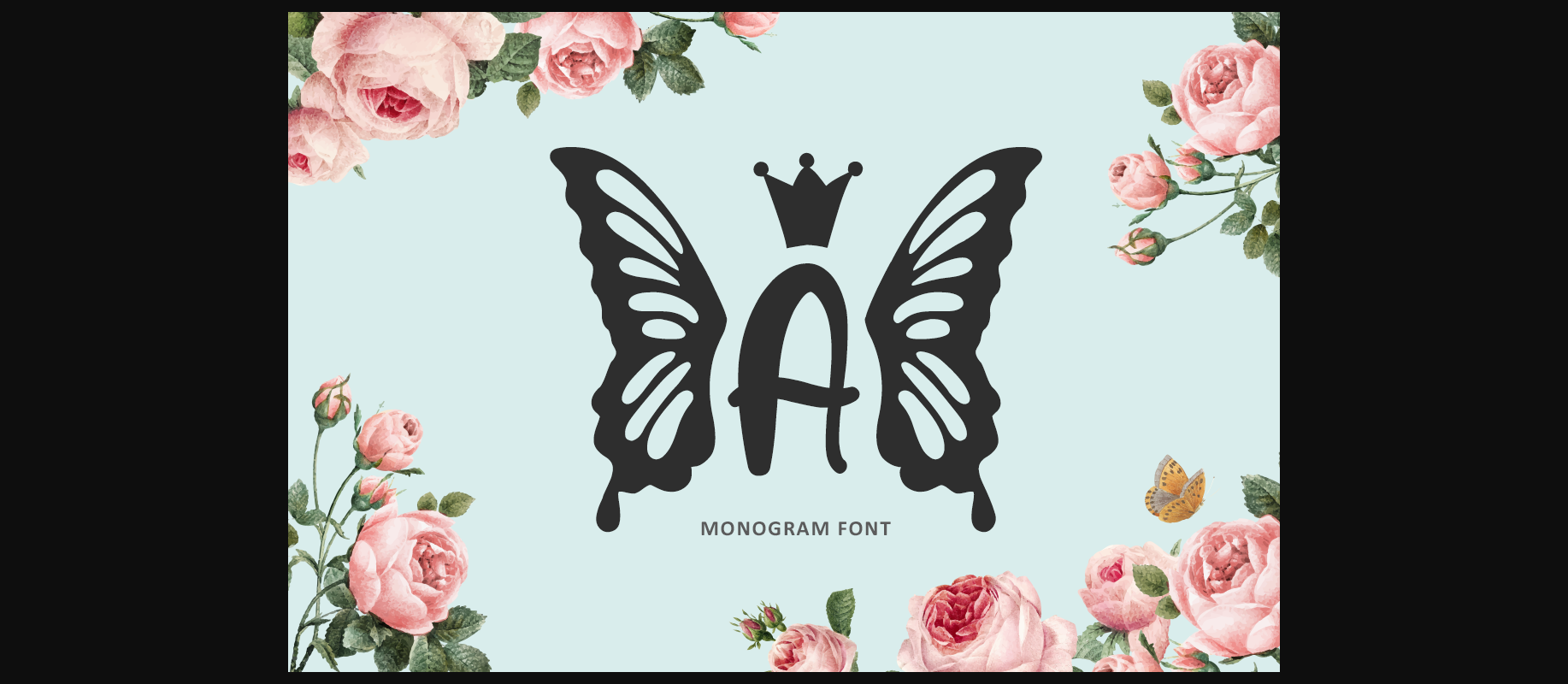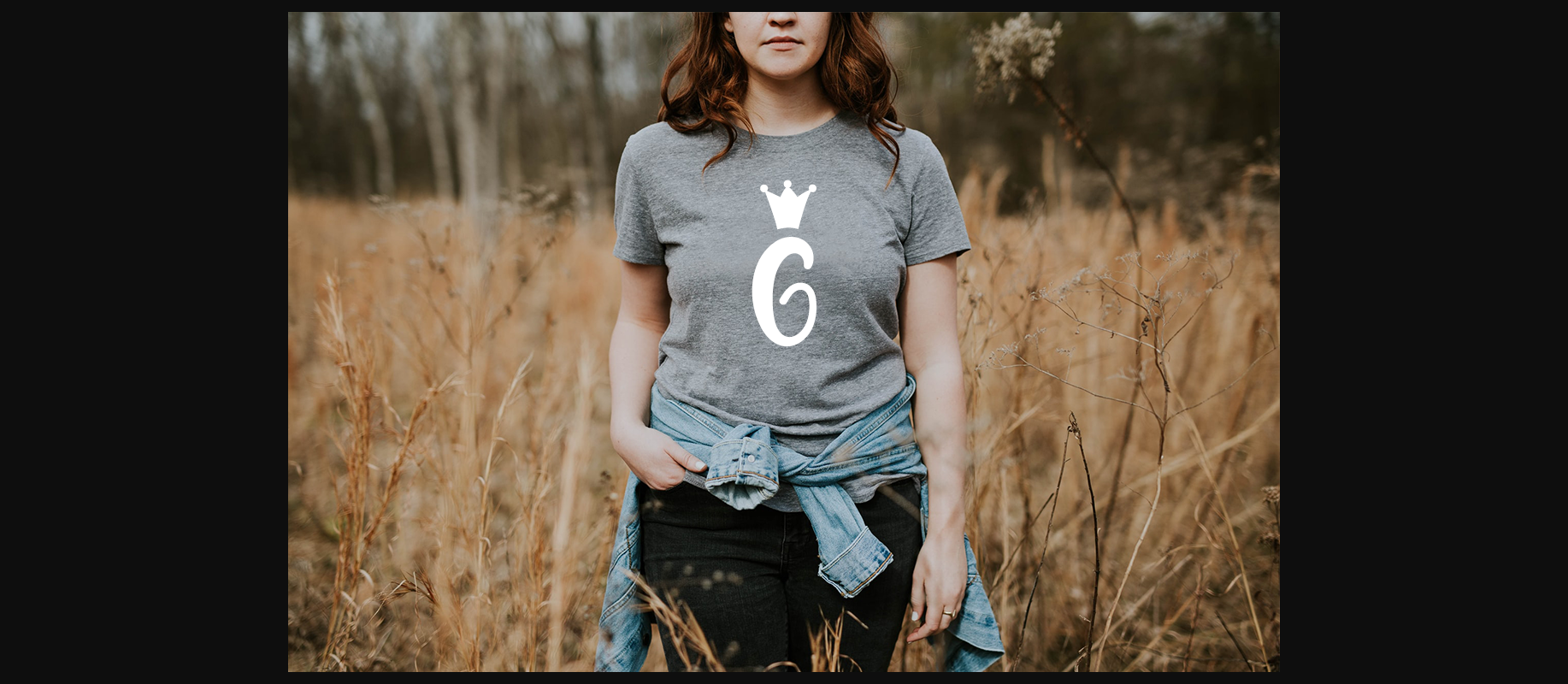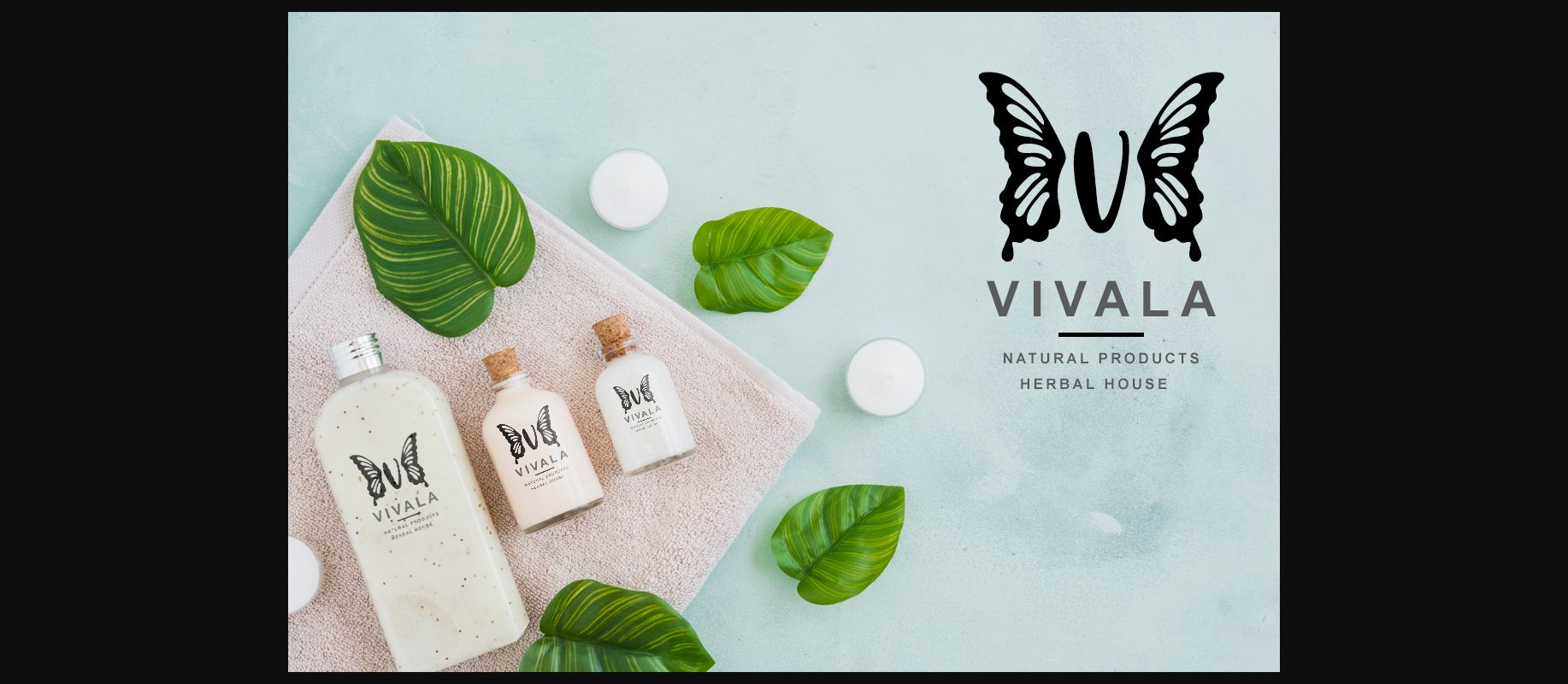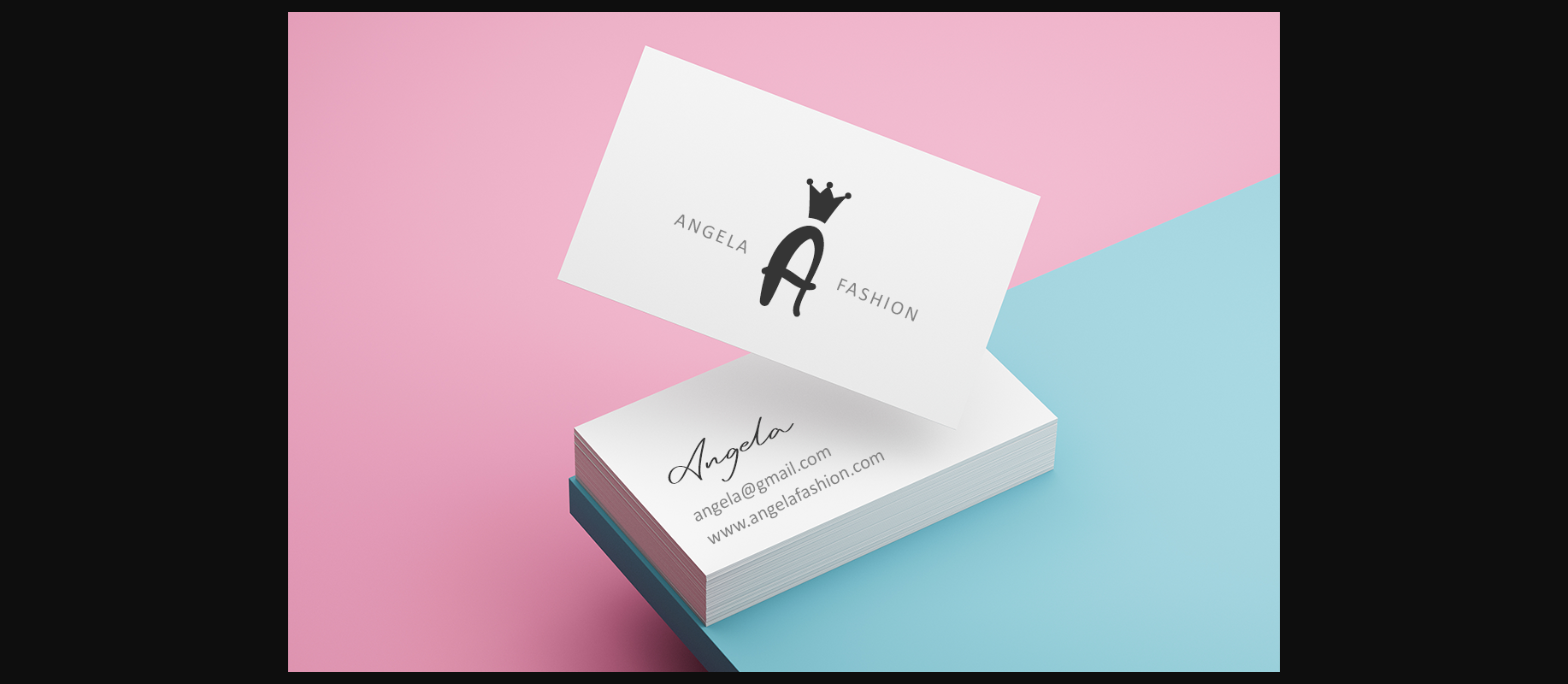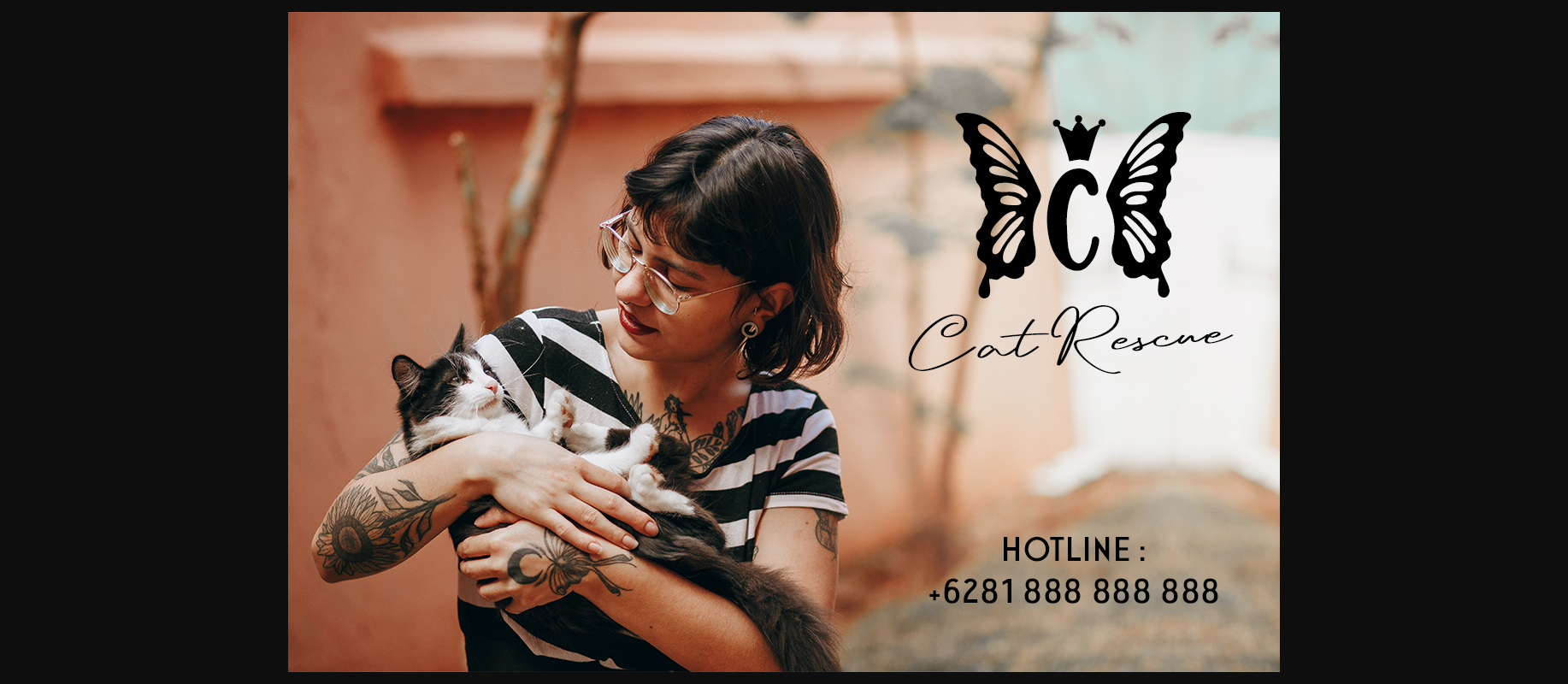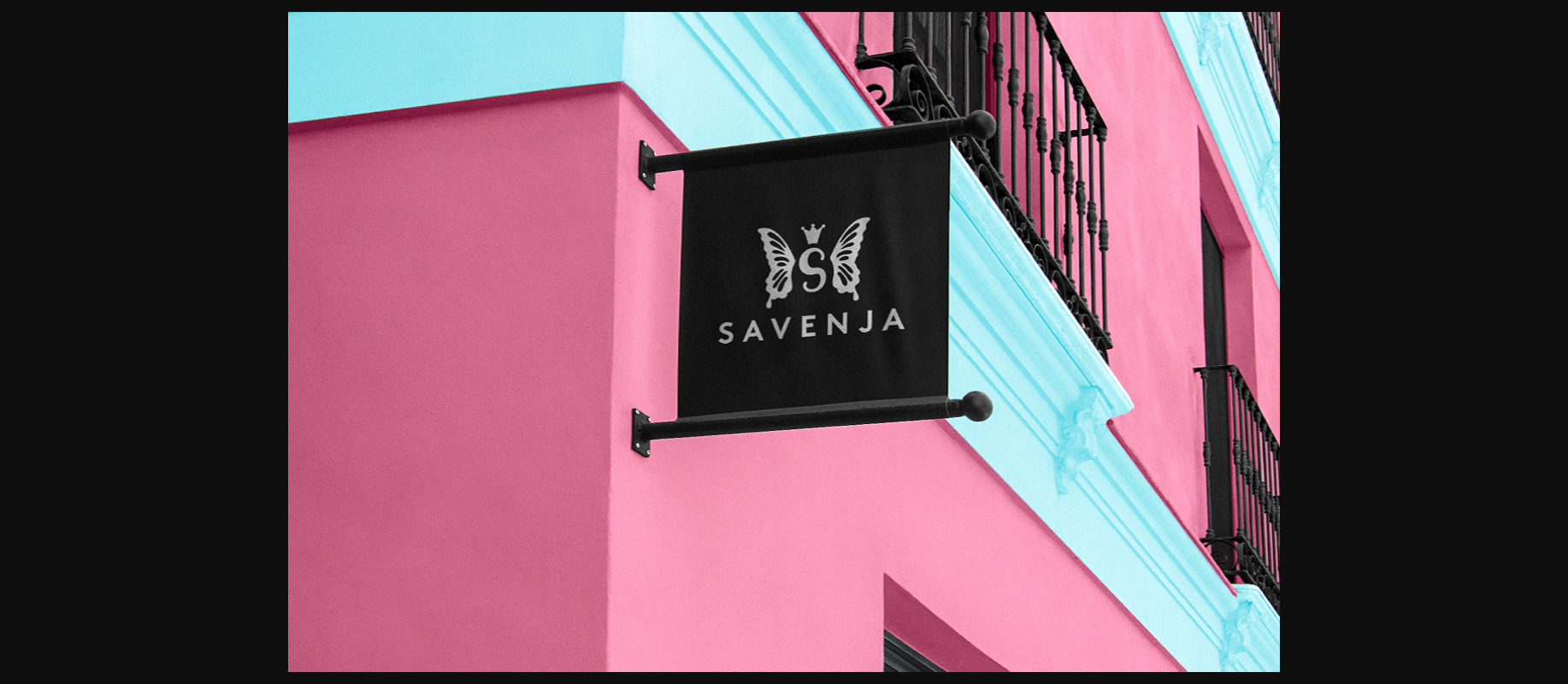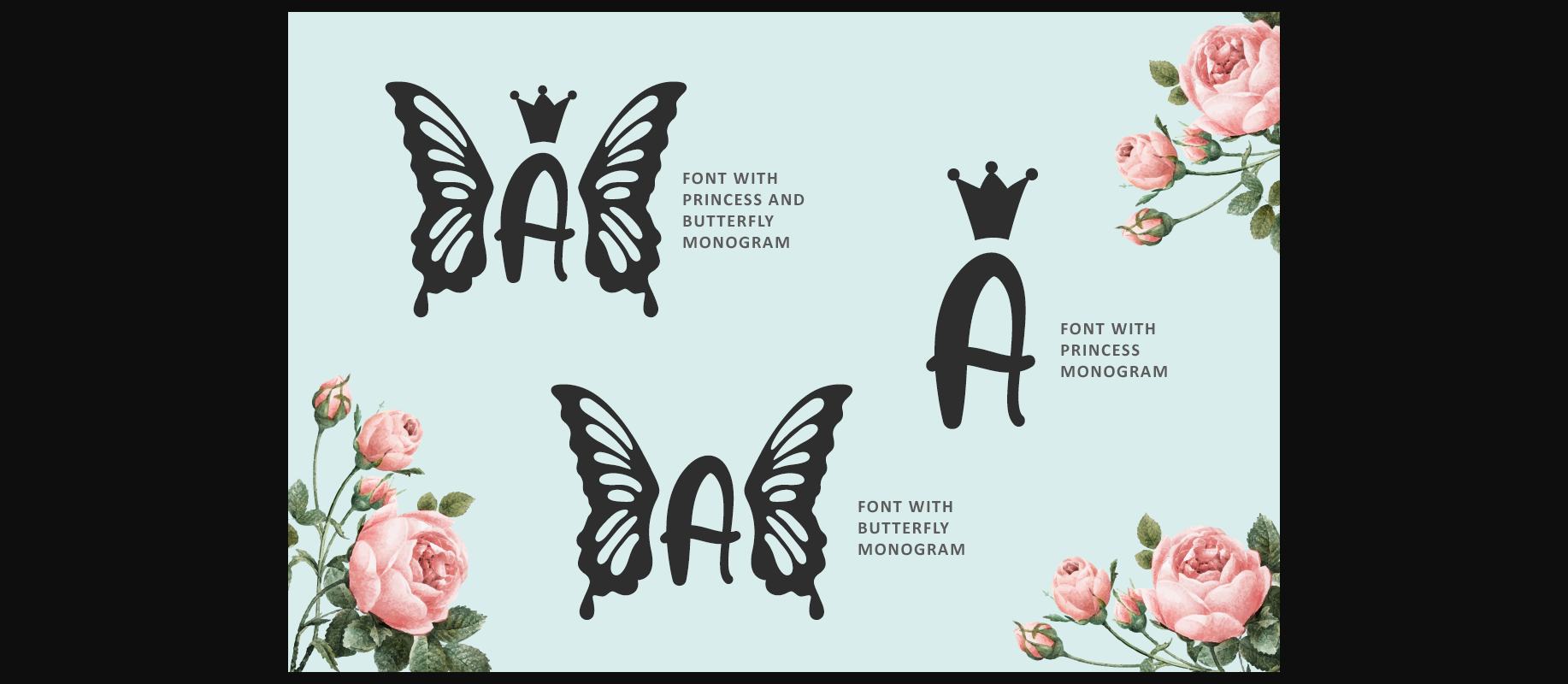
This fun and playful decorative font is designed to catch all eyes on it! Its butterfly decorations and lovely characters make this font perfect for a wide pool of projects and designs, and it is sure to make every creation stand out!